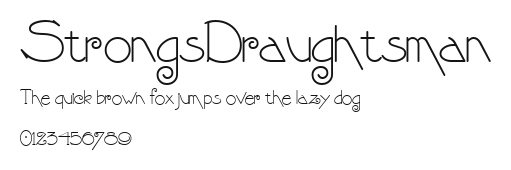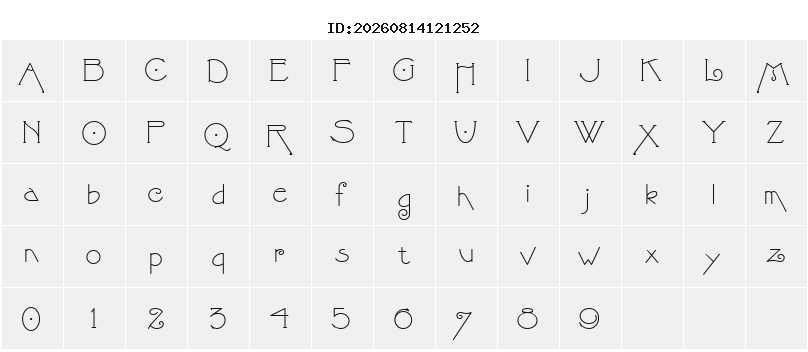
• Font Name: StrongsDraughtsman
• Designer: Nick Curtis
• Manufacturer: Nick's Fonts
About StrongsDraughtsman.ttf
StrongsDraughtsman.ttf is a modern, elegant sans-serif font designed for ultimate readability and visual harmony. Perfect for branding, headlines, web design, and print materials.